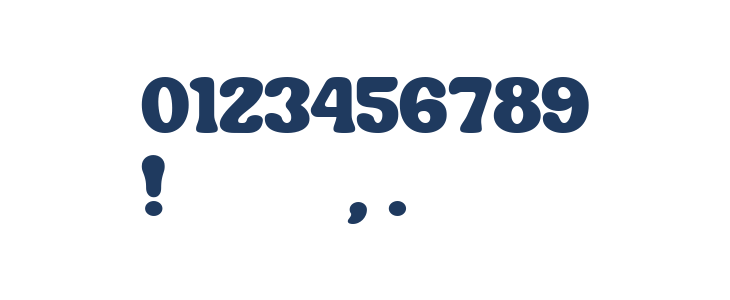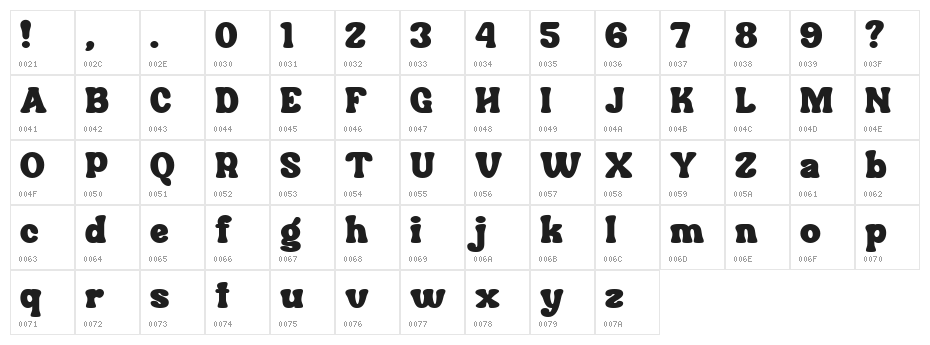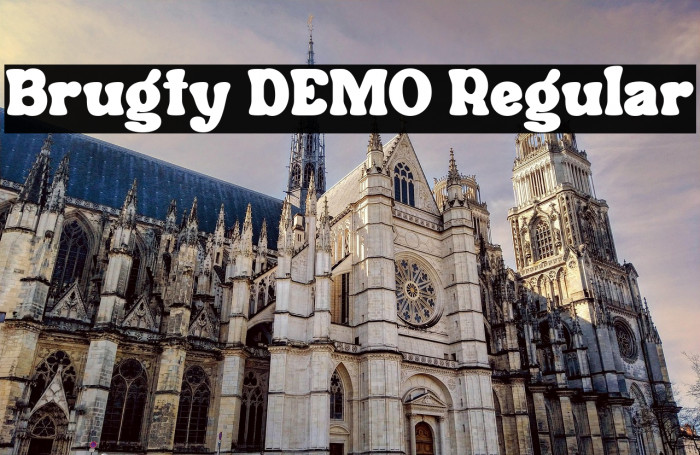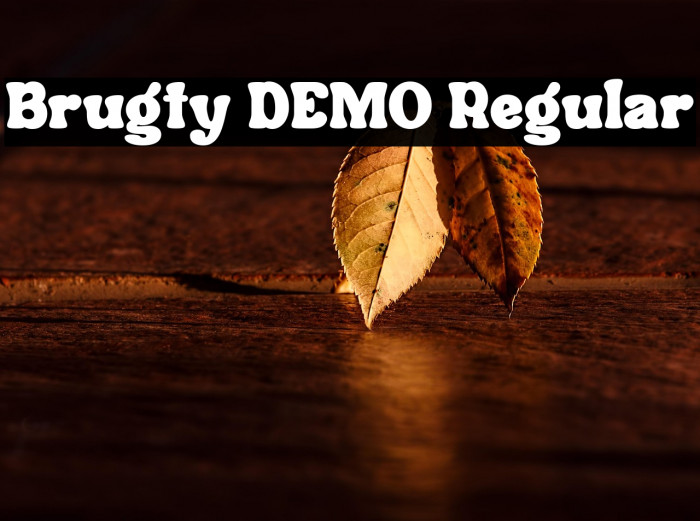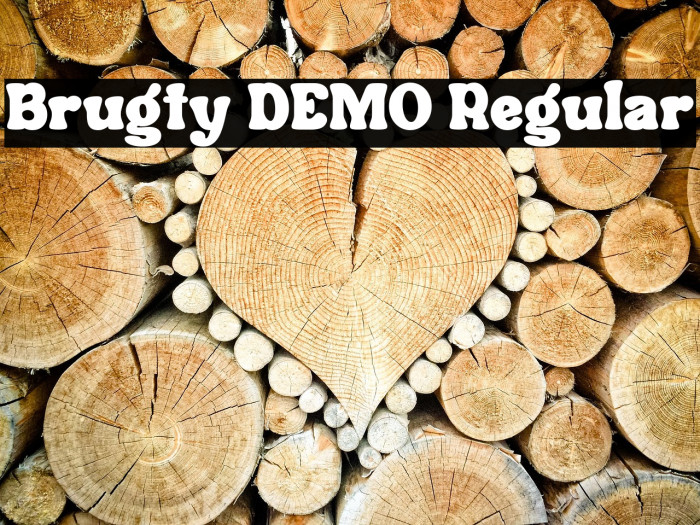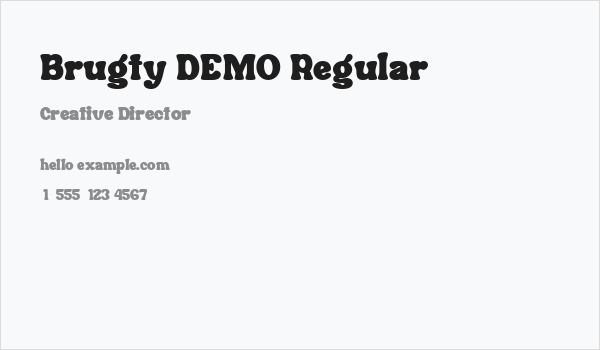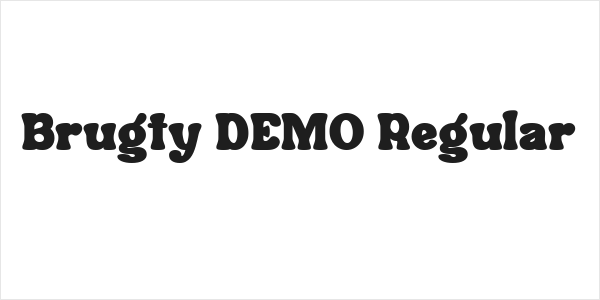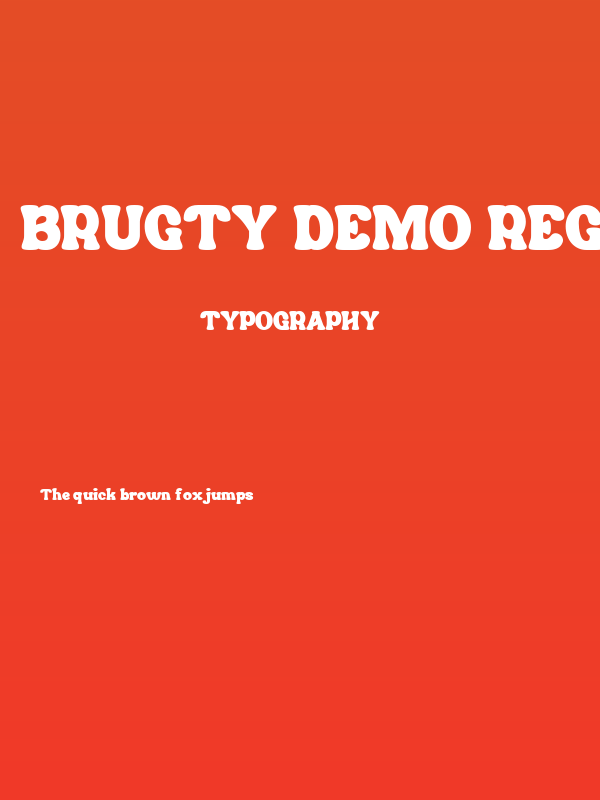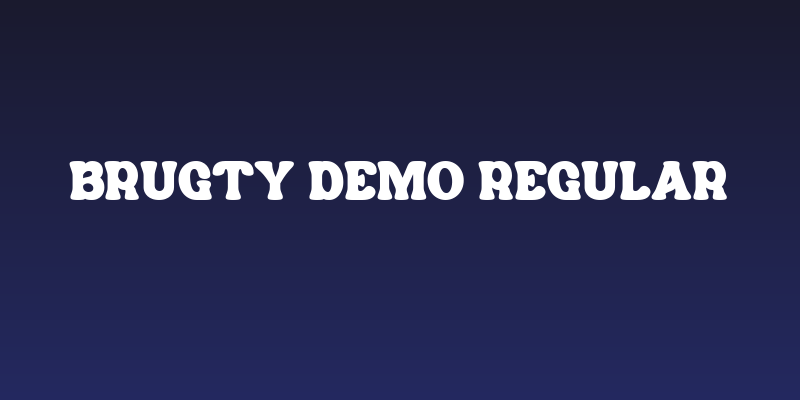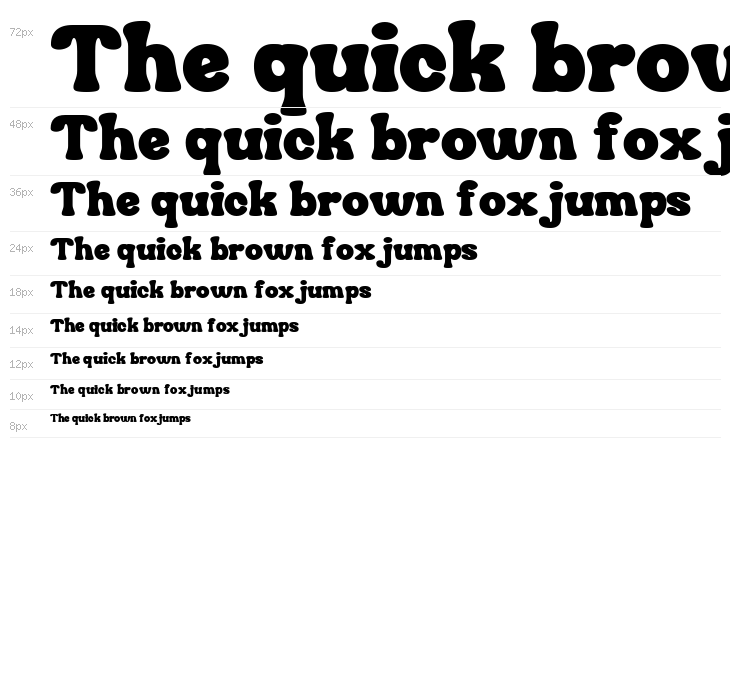
Brugty DEMO Regular Font
Brugty DEMO Regular Description
This font features a bold and playful design, characterized by its thick, rounded strokes and whimsical curves. The letters have a bubbly appearance, giving them a friendly and approachable feel. The uppercase and lowercase letters maintain a consistent style, with the lowercase letters slightly more compact. The numerals are equally bold, ensuring readability and consistency across different uses. The special characters retain the same playful aesthetic, making them suitable for a variety of creative applications.
| Proposed Projects | Ideal for children's books, playful branding, posters, and creative social media graphics. |